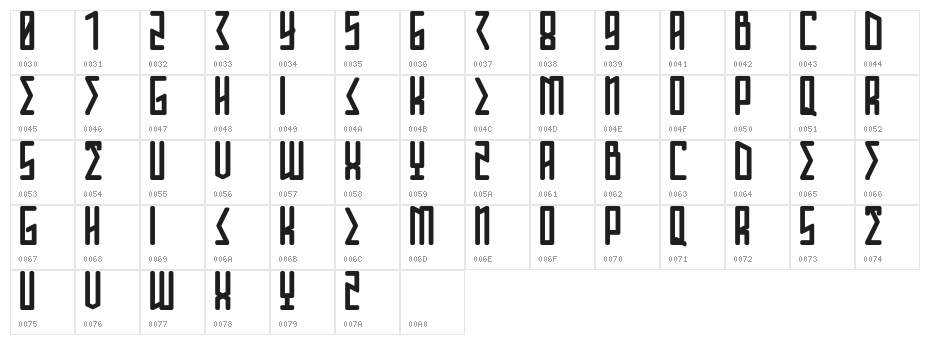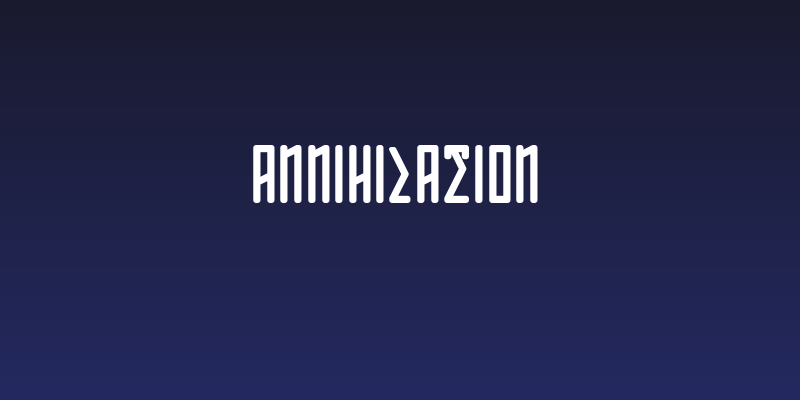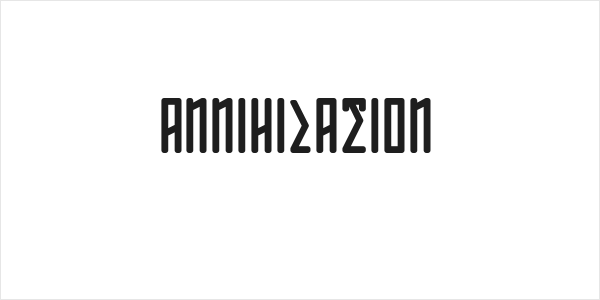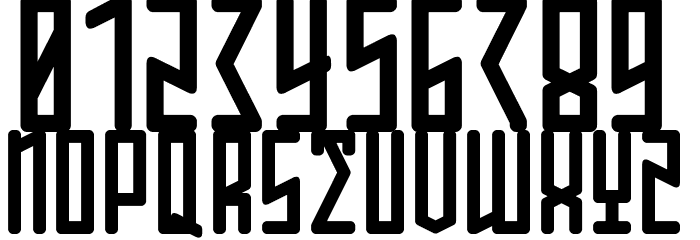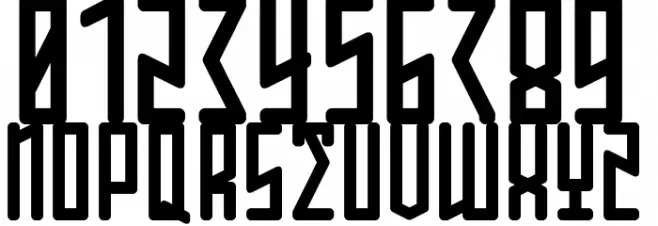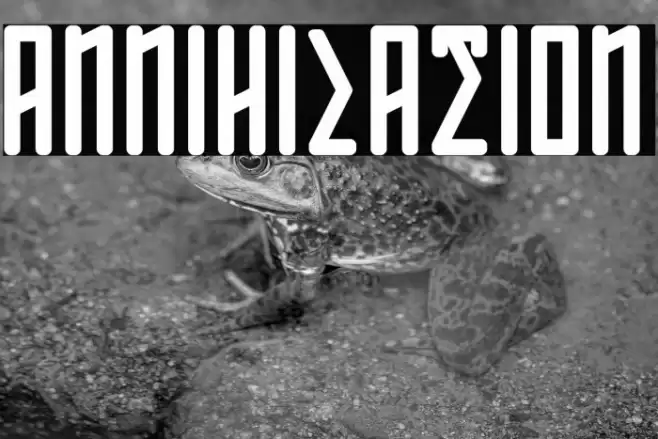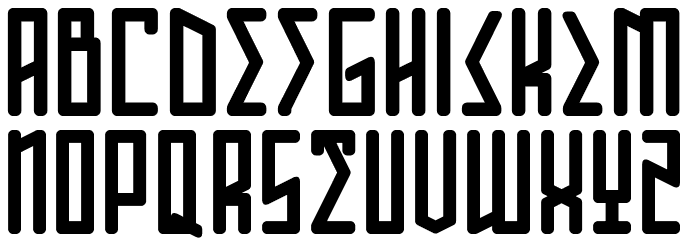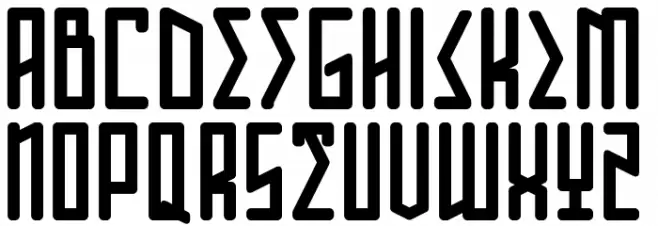
ANNIHILATION Font
✎ Futuristic
| Vorgeschlagene Projekte | Ideal for sci-fi themed posters, video game titles, branding for tech companies, and any project requiring a modern, edgy look. |